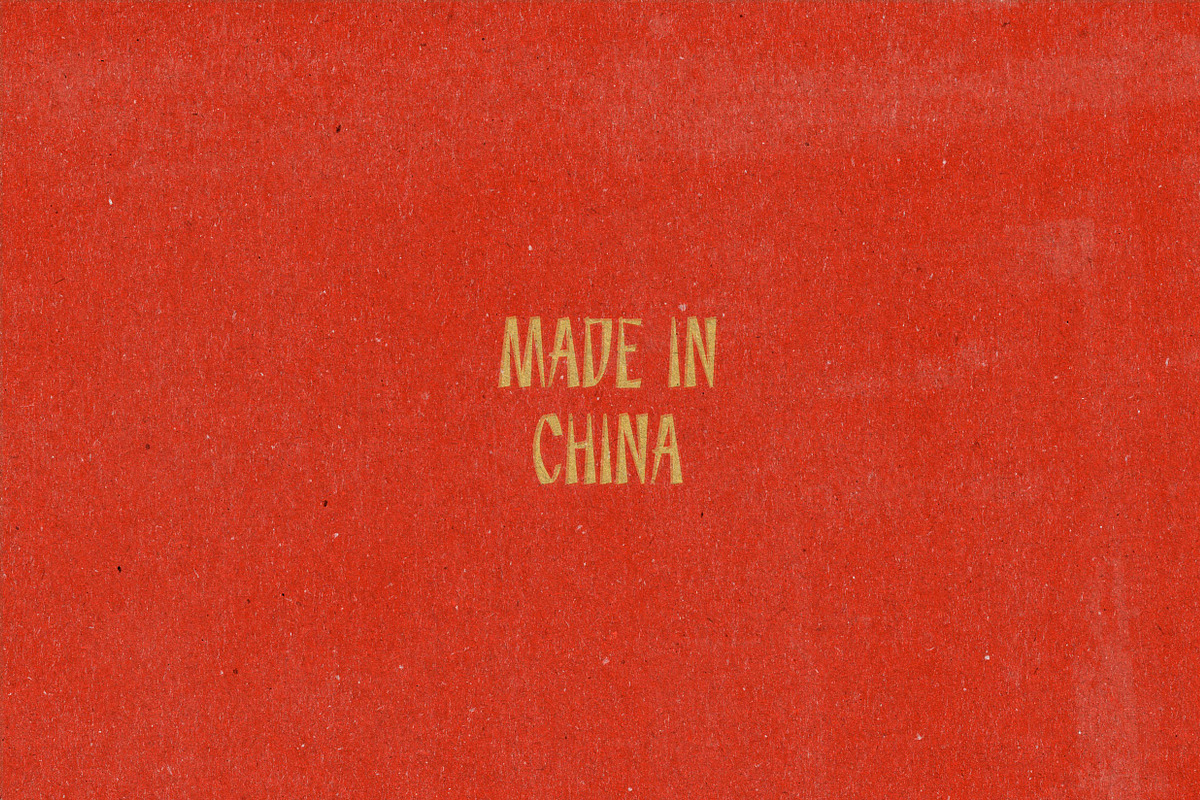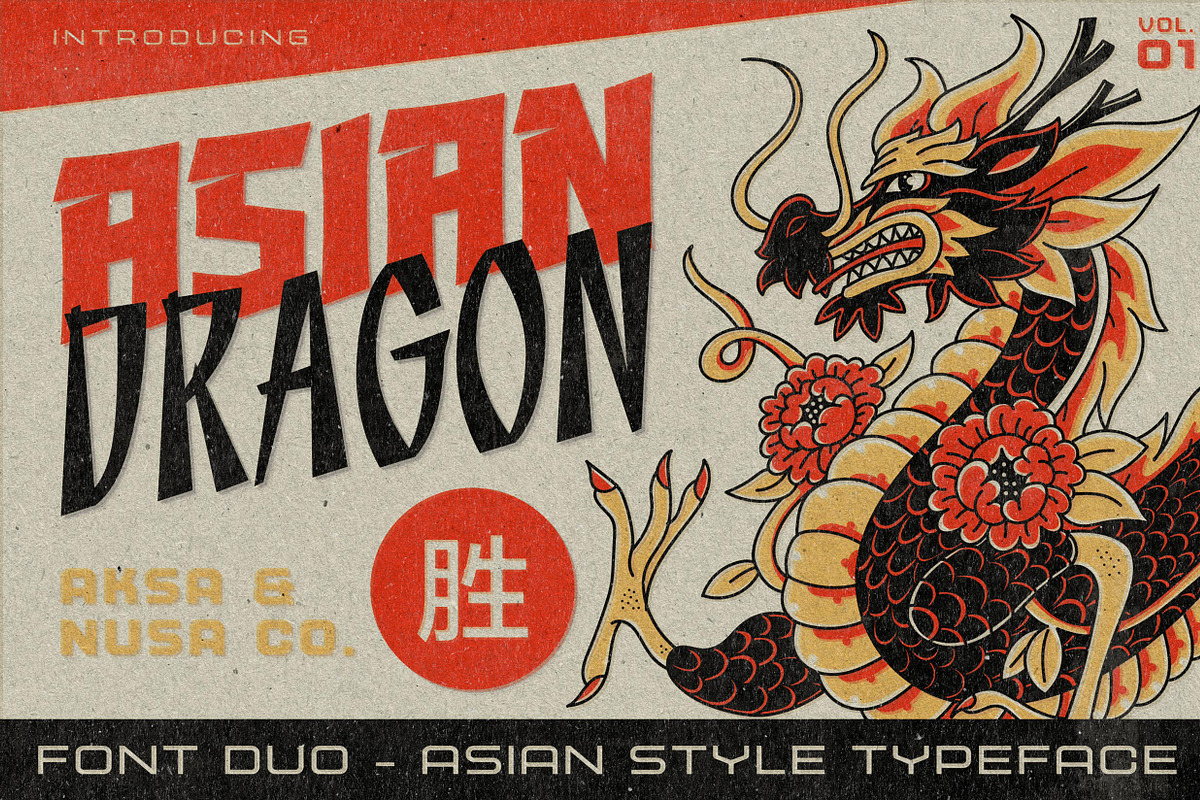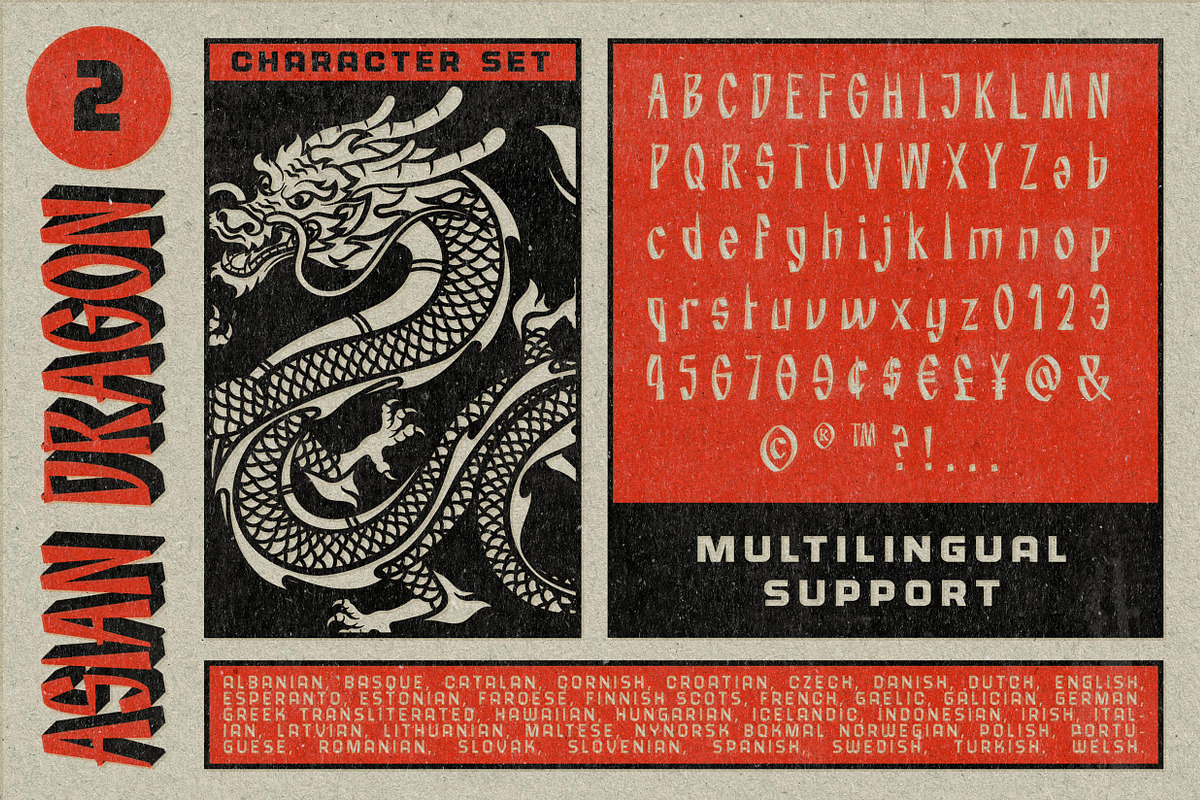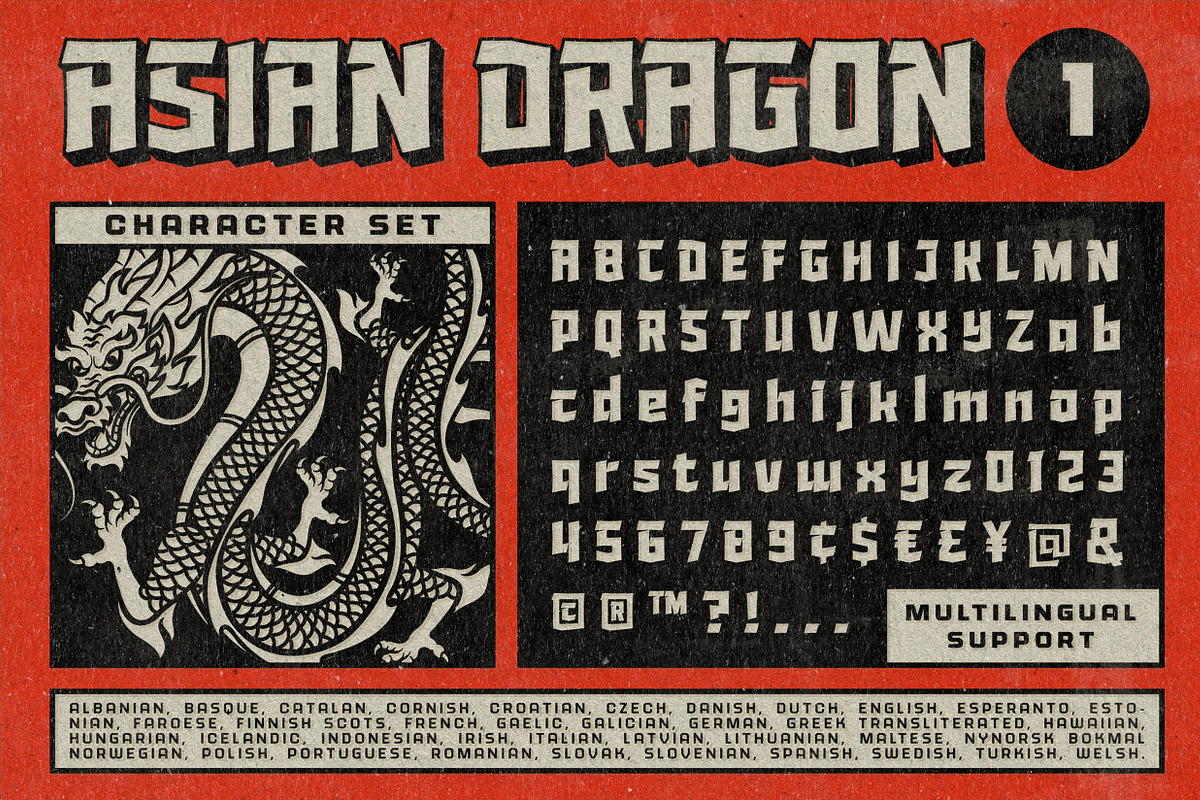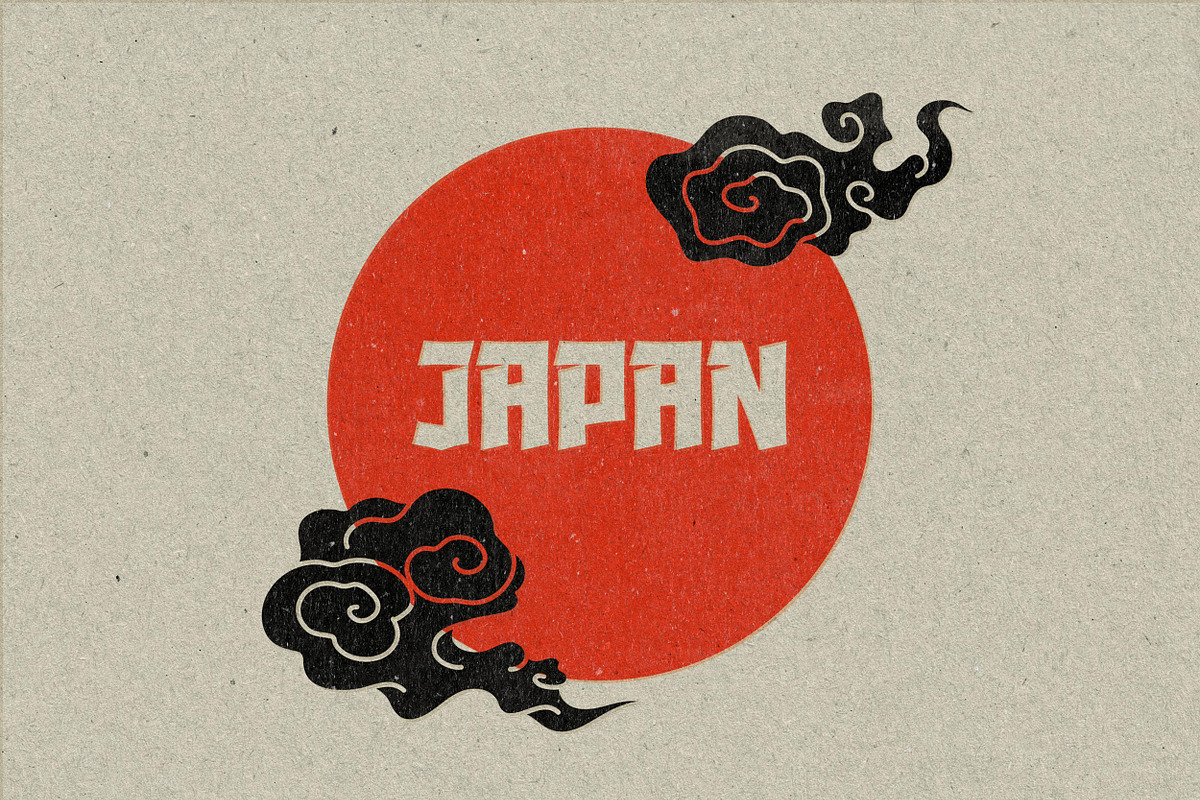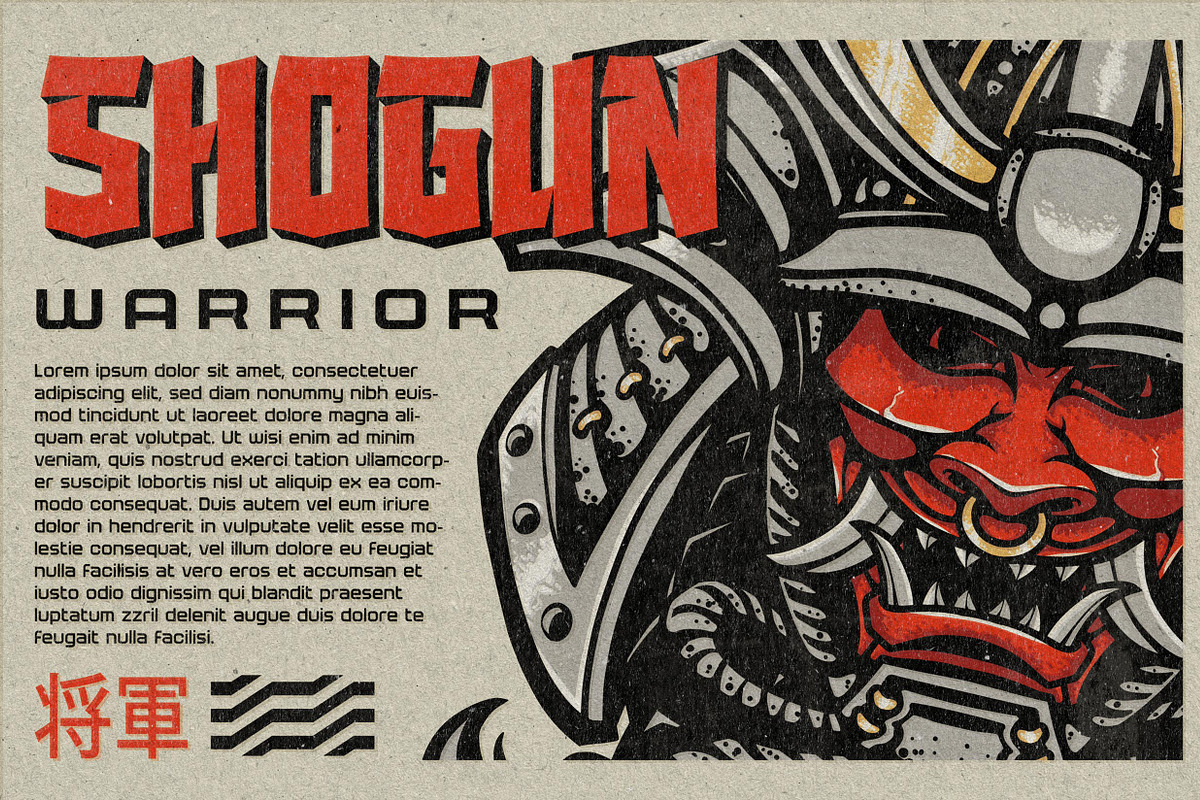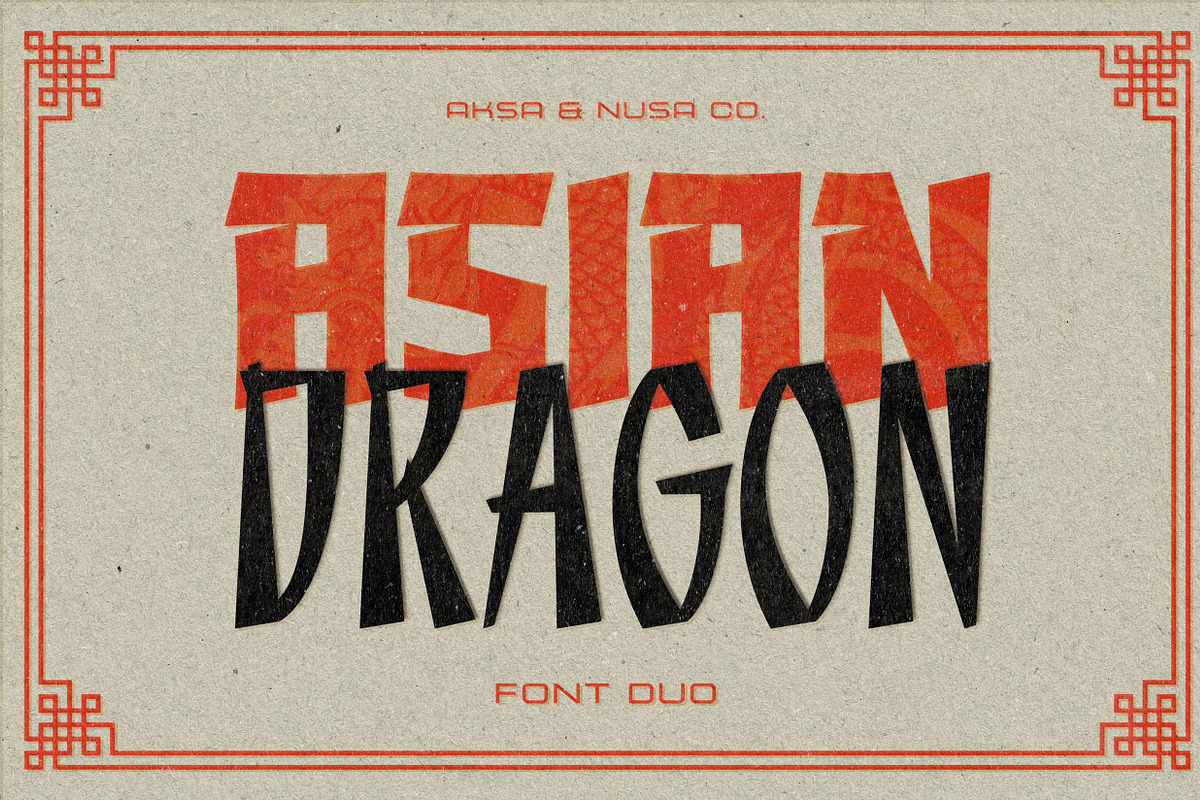
ASIAN DRAGON - FONT DUO
ASIAN DRAGON Inspired by Asian typography culture such as ink and brush handwriting. Perfectly fit for your Japanese concept, Japanese food, Chinese New Year projects, Logo, Branding, Restaurant, China Town decoration, Chinese concept, anytime you need an instant vibe of it
Language Support: Albanian, Basque, Catalan, Cornish, Croatian, Czech, Danish, Dutch, English, Esperanto, Estonian, Faroese, Finnish Scots, French, Gaelic, Galician, German, Greek Transliterated, Hawaiian, Hungarian, Icelandic, Indonesian, Irish, Italian, Latvian, Lithuanian, Maltese, Nynorsk Bokmal Norwegian, Polish, Portuguese, Romanian, Slovak, Slovenian, Spanish, Swedish, Turkish, Welsh. If you doubt with it please type it out in the text box below, I hope it will support your language too :)